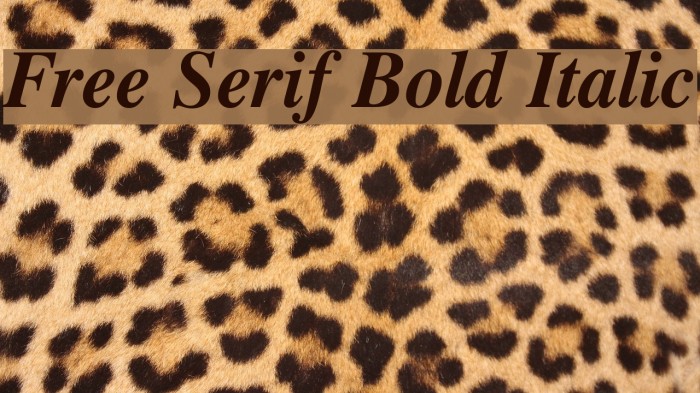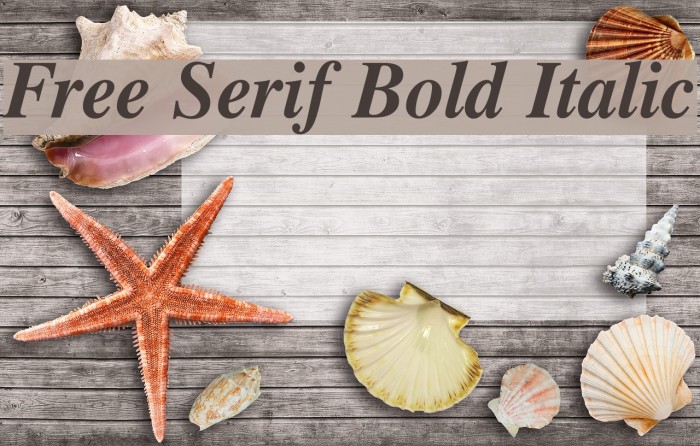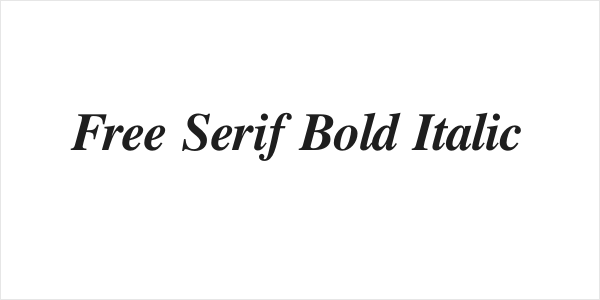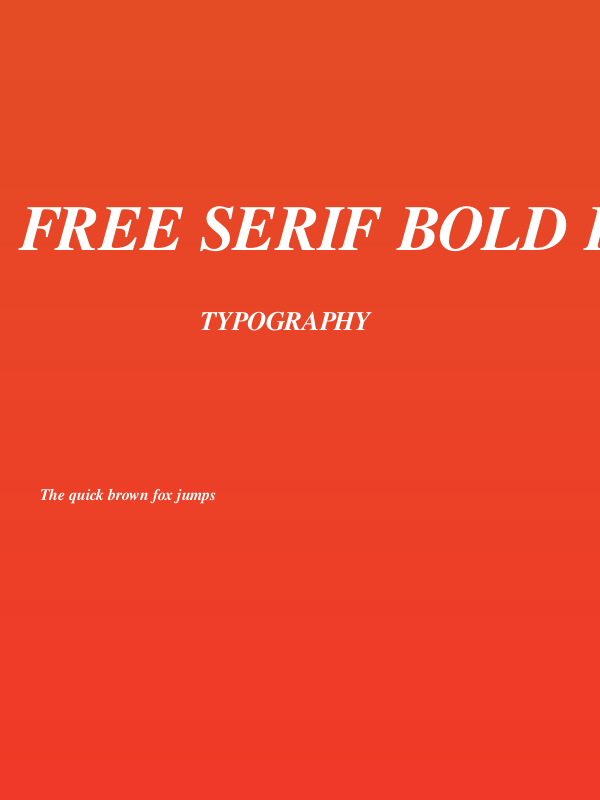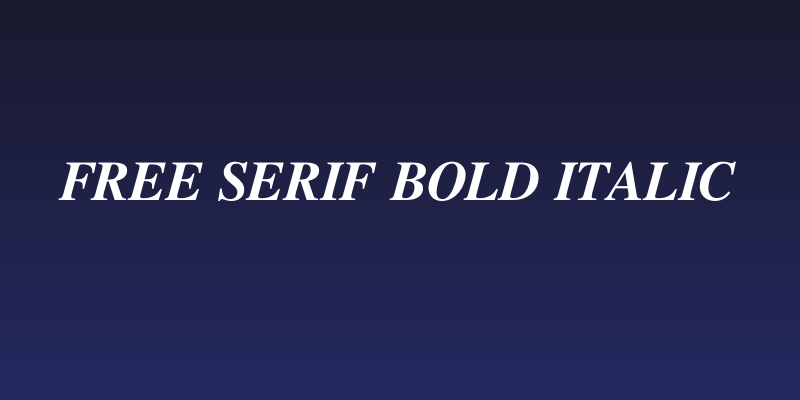
Free Serif Bold Italic Font
Free Serif Bold Italic Description
This font exhibits a classic serif style with bold and italic characteristics, providing a strong and elegant appearance. The serifs are pronounced, adding a touch of sophistication and tradition. The italic slant gives it a dynamic and flowing feel, making it suitable for formal and creative applications. The bold weight enhances its presence, ensuring readability and impact. The characters are well-proportioned, with a balanced contrast between thick and thin strokes. This font is versatile, suitable for both digital and print media, and can be used to convey authority and elegance.
| Proposed Projects | Ideal for book covers, formal invitations, branding, and editorial design. |